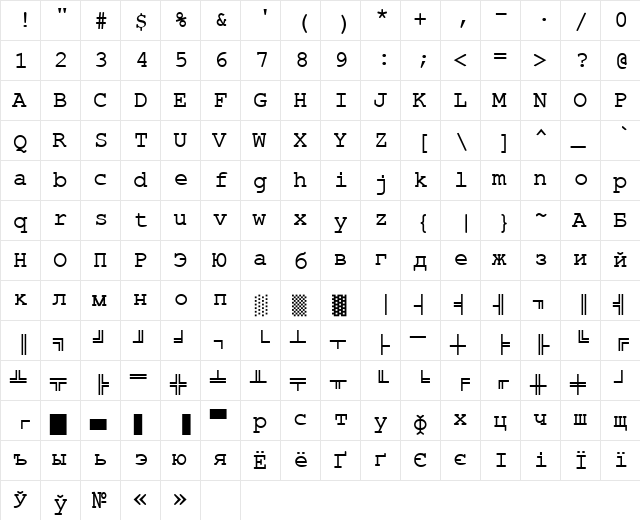
ER Kurier 866 Normal
Design Context for ER Kurier 866 Typeface
ER Kurier 866 offers clean, dependable letterforms without strong stylistic allegiance, making it a practical choice for designers who need flexibility.